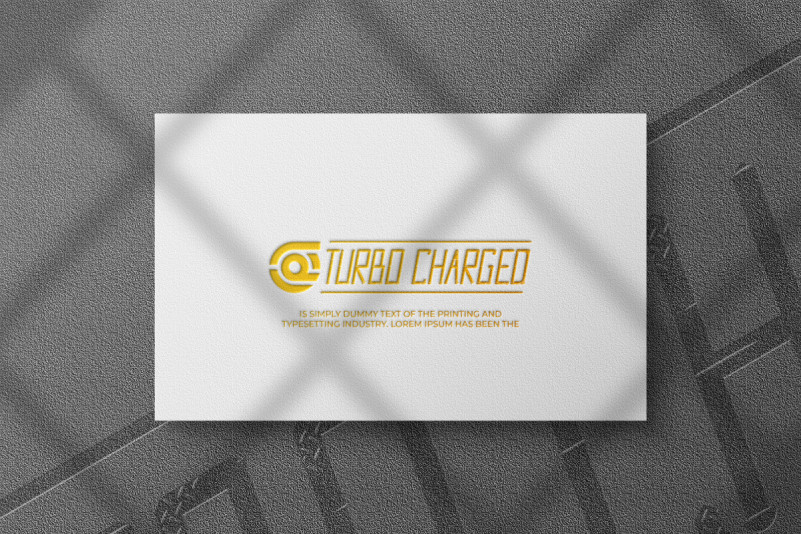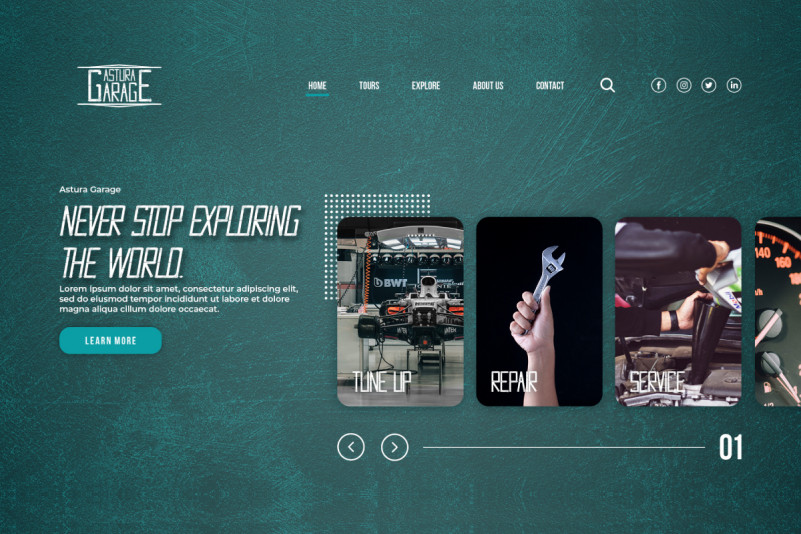
Strong Iron Font
Strong Iron Display Font
This is a special display font family with unique style. It has a Futuristic, gun effect, grunge, strong and exclusive glyphs. Strong Iron Font will be perfect for branding, logo, photography and signature. It is so elegant, classy, strong and beautiful.
Strong Iron Display Font is inspired from metal iron and guns fight. The font has two styles: Regular and Italic. It works on PC & Mac with Simple installations. Accessible in the Adobe Illustrator, Adobe Photoshop, Adobe InDesign, even work on Microsoft Word. It’s also PUA Encoded Characters – Fully accessible without additional design software.